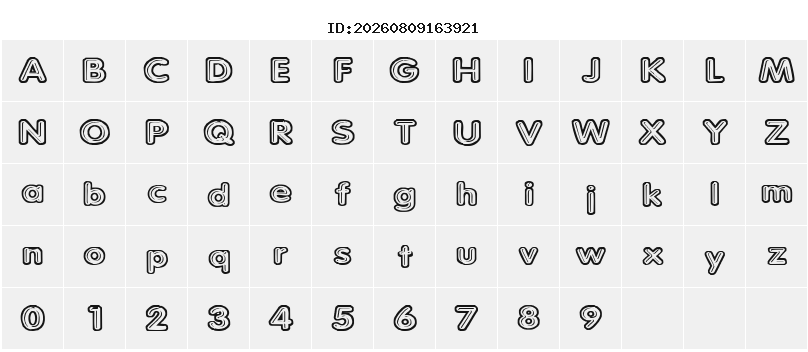
About Parkvane.ttf
Parkvane.ttf is a modern, elegant sans-serif font designed for ultimate readability and visual harmony. Perfect for branding, headlines, web design, and print materials.